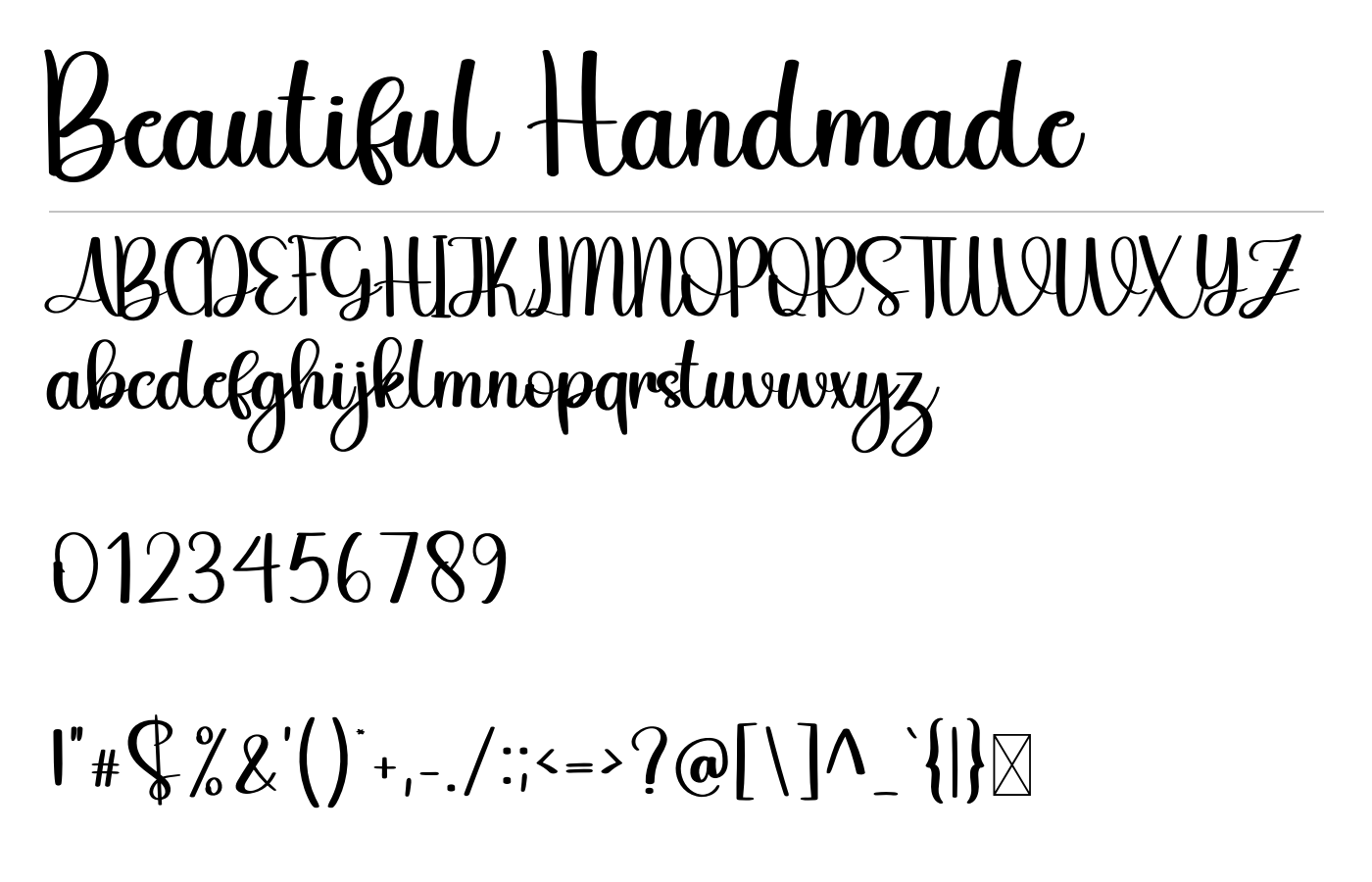
Beautiful Handmade Font is a playful and elegant script typeface with a casual, handcrafted feel. Its tall, narrow letterforms feature smooth, flowing curves and moderate stroke contrast, making it perfect for creative projects that require a personal, warm touch. This font works beautifully for branding, invitations, and headlines where a friendly yet sophisticated style is desired.
Beautiful Handmade Font